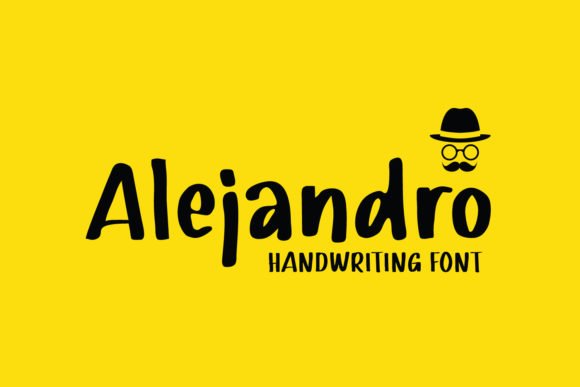
Get Ready to Groove with the Ultimate Retro Font Remember the thrill of flipping through a vintage record store, surrounded by the psychedelic artwork of the 1960s and 70s? The colors, the patterns, the sheer creativity of it all? That’s the moment when the magic happens – when you’re inspired to create something truly unique…